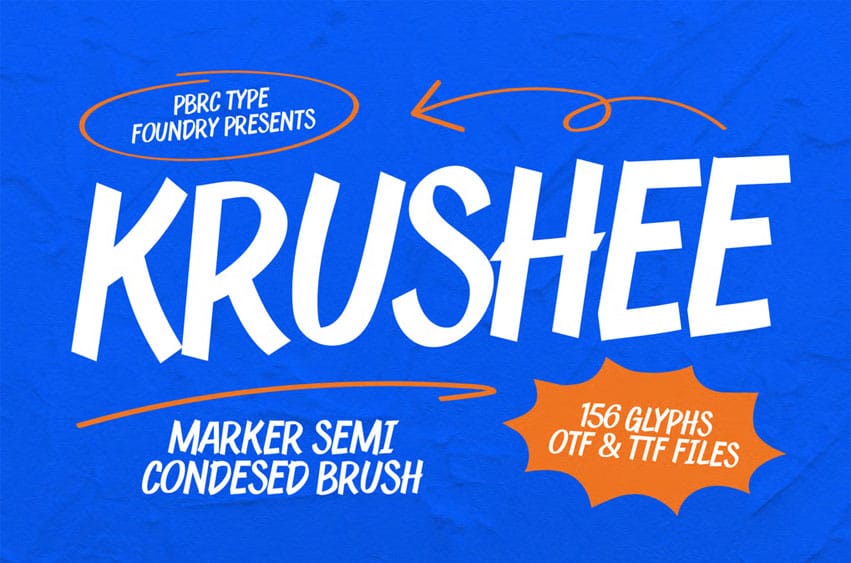
Krushee Font is an expressive brush-style marker font that captures the spontaneity and energy of hand-drawn strokes. Perfect for posters, fun branding, social media visuals, and sporty or street-style designs, it delivers a bold, dynamic, and authentic marker feel.
Ideal for headlines, logos, editorials, packaging, quotes, films, games, album covers, books, and promotional materials. This font ensures your design stands out in any setting.